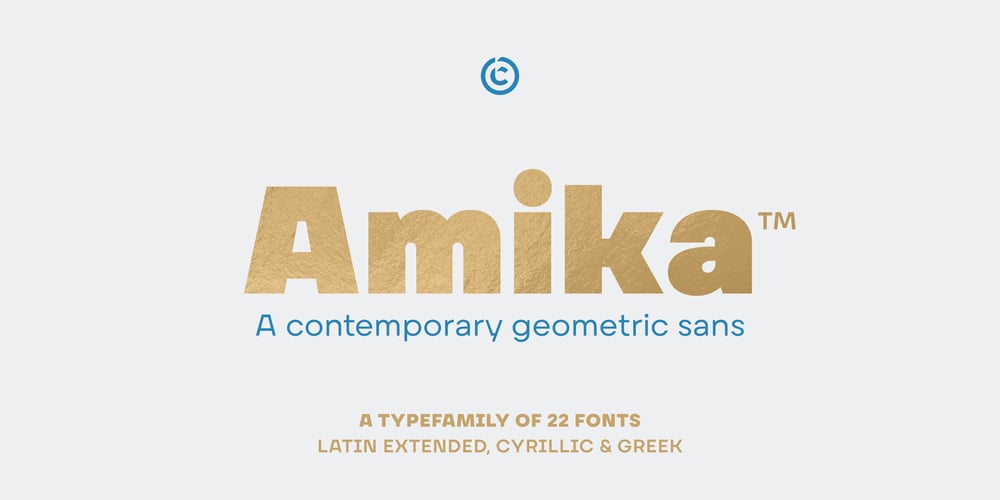
Amika Font Family was designed by João Cracel and published by Craceltype. Amika contains 22 styles and family package options. Amika™ is a rational geometric sans serif with an engaging personality and a contemporary profile. The large x-height, minimal contrast and the double storey ‘a’ makes Amika™ a highly legible typeface suited for any kind of text applications, from display poster type to massive text layouts.Amika™ has 22 styles and it’s a workhorse type system. Versatile and reliable, it covers 230+ languages, including extended Latin, Cyrillic and Greek writing systems. With over 1280 glyphs per style, its Opentype features include alternative shapes, small caps, standard and discretionary ligatures, localized forms in Latin and Cyrillic, case sensitive forms, numerators and denominators, proportional and tabular figures, slashed zero, fractions and more. With a tectonic touch, Amika™ is a prototypical sans serif of the New Media age that, due to its extensive set of features, conveys a great choice for a wide range of applications, from branding to broadcast.